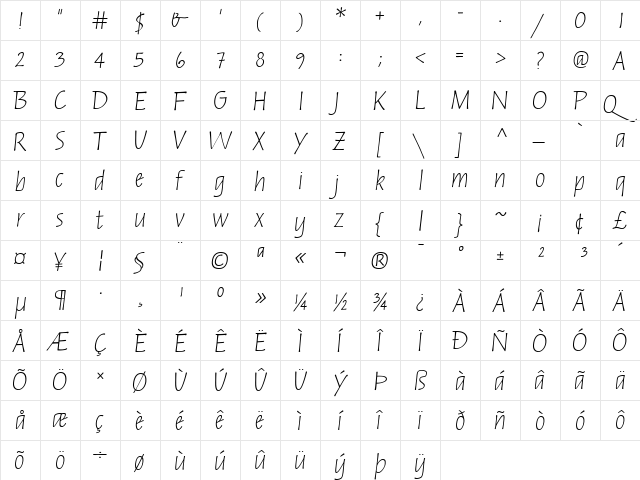
AIRussellOblique Italic
| Foundry | Copr. by Karen Ackoff and Philip Bouwsma |
Design Context for AIRussellOblique Typeface
AIRussellOblique takes a measured approach to typography — its balanced proportions and neutral character make it a reliable workhorse for both digital and print work. The slanted form adds forward momentum and visual energy.